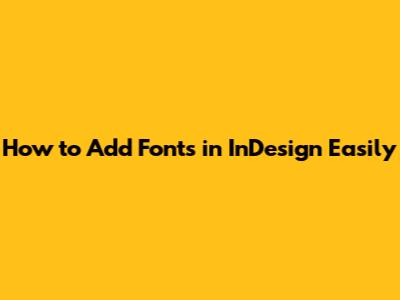
What's up, design gurus! Ever been in a situation where you're deep into a killer InDesign project, feeling the creative juices flow, and then BAM! You realize you need a super specific font to nail that aesthetic? It’s a common struggle, guys, and thankfully, adding new fonts to your InDesign workflow is totally straightforward. We’re talking about making your documents pop with fresh typography, and it’s not as intimidating as it sounds. So, let's dive into how you can easily add fonts in InDesign and level up your design game, ensuring your projects always look sharp and professional. This guide is all about making sure you have the tools you need right at your fingertips, so you can switch fonts like a pro and keep those creative vibes going strong. We’ll cover everything from understanding font types to the actual installation process, making sure you feel confident and ready to tackle any typographic challenge. Get ready to expand your font library and impress your clients (or just yourself!) with beautifully designed layouts. This isn't just about adding a font; it's about unlocking a whole new world of design possibilities and giving your projects that unique, personalized touch that only the right typeface can provide. So, buckle up, and let's get this font party started!
Understanding Font Files: The Basics Before You Begin
Before we jump headfirst into the how-to of adding fonts, let’s get a handle on the different types of font files you’ll typically encounter. Knowing this will save you a lot of confusion down the line. The two most common types you'll be dealing with when you add fonts in InDesign are OpenType (.otf) and TrueType (.ttf). OpenType fonts are generally the more modern and versatile option. They can contain a whole lot more characters and typographic features, like ligatures, stylistic alternates, and small caps, all bundled into a single font file. This makes them super powerful for designers who need a lot of flexibility. TrueType fonts, on the other hand, are an older format but still widely used and perfectly functional. They usually have separate files for different styles (like bold, italic, etc.), which can sometimes make font management a bit more cumbersome compared to the all-in-one nature of OpenType. You might also come across PostScript fonts (.pfb/.pfm), though these are becoming less common, especially with newer font releases. They work well but can sometimes be a bit trickier to install or manage. The key takeaway here is that InDesign can handle all these major types, but understanding their basic differences helps you appreciate the capabilities of the fonts you’re using. It’s also important to ensure you have the proper licensing for any font you use, especially for commercial projects. Fonts are software, and like any software, they come with licenses that dictate how you can use them. So, when you download or purchase a font, take a moment to check its EULA (End-User License Agreement). This will tell you if you can use it for print, web, embedding in PDFs, or even if you can install it on multiple computers within a team. Respecting font licenses is crucial for legal and ethical design practices, and it ensures the font creators are compensated for their amazing work. So, before you go downloading every cool font you see, give that license a quick read. It’s a small step that makes a big difference in the professional design world, ensuring you're always playing by the rules and keeping your projects on the up and up. Plus, you don't want any nasty surprises down the line, right?
Installing Fonts on Your System: The Foundation for InDesign
Okay, so you've got your shiny new font file ready to go. The crucial first step before you can add fonts in InDesign is actually installing the font onto your operating system. InDesign doesn't have its own separate font library; it relies on the fonts that are already available to your computer. Think of it like this: InDesign is a chef, and your operating system is the pantry. You need to stock the pantry with ingredients (fonts) before the chef can use them. The installation process varies slightly depending on whether you're using a Mac or a Windows PC, but the core idea is the same. For macOS users, the easiest way is usually to double-click the font file you’ve downloaded. This will open the Font Book application, which is macOS’s built-in font manager. You'll see a preview of the font, and there will be an “Install Font” button. Click that, and boom! The font is installed and available system-wide. Alternatively, you can open Font Book directly from your Applications folder and drag and drop your font files into the Font Book window. For Windows users, the process is similarly simple. You can right-click on the font file and select “Install” or “Install for all users.” Selecting “Install for all users” is generally recommended, especially if you're on a shared computer or want to ensure the font is accessible from all applications. Another method is to open the Control Panel, navigate to the “Appearance and Personalization” section, and then select “Fonts.” From there, you can simply drag and drop your font files into the Fonts folder. Once the installation is complete, it's a good idea to restart any Adobe applications you have open, including InDesign, to ensure they recognize the newly installed font. Sometimes, InDesign might already be running when you install a font, and it won’t pick it up until you give it a little refresh. Closing and reopening the application is the quickest way to do this. This step of installing the font at the system level is absolutely critical. If you skip this, InDesign won’t magically find it, and you’ll be left scratching your head wondering why your cool new font isn’t showing up in the dropdown menu. So, always remember: system installation first, then InDesign usage. It’s a fundamental step that unlocks the door to all the new typographic possibilities waiting for you. Don't underestimate the power of this basic step – it's the gateway to a world of design expression!
Adding Fonts Directly Within InDesign: Creative Cloud and Font Management
Now, let's talk about how you can add fonts in InDesign more directly, especially if you're part of the Adobe Creative Cloud ecosystem. This is where things get really slick. Adobe Creative Cloud offers a fantastic integrated solution called Adobe Fonts (formerly Typekit). If you have an active Creative Cloud subscription, you automatically get access to a vast library of high-quality fonts from leading foundries. The beauty of Adobe Fonts is that it integrates seamlessly with InDesign and other Adobe apps. To activate a font from Adobe Fonts, you don't need to manually download and install files onto your system in the traditional sense. Instead, you manage it all through the Creative Cloud desktop app or directly within InDesign. Open InDesign, go to the “Type” menu at the top, and select “Add Fonts from Adobe Fonts.” This will launch a panel or browser window where you can explore thousands of fonts. Found something you love? Simply click the activation toggle next to it, and the font will be downloaded and activated for use across all your Adobe applications. It's incredibly convenient because Adobe handles all the backend installation for you. The fonts activated through Adobe Fonts are managed through your Creative Cloud account, meaning they are available on any computer where you are logged in with your Adobe ID. This is a massive win for collaboration and for designers who work across multiple machines. You don't have to worry about manually transferring font files or dealing with licensing issues for these activated fonts, as they are covered under your subscription. The selection is constantly growing, too, with new fonts being added regularly. So, you always have access to cutting-edge typography. It’s like having a professional type foundry at your service, ready whenever inspiration strikes. This method is arguably the easiest and most integrated way to add fonts in InDesign if you’re a Creative Cloud subscriber, offering a wealth of options without the fuss of manual installation. You can browse by category, foundry, or even similarity, making it super easy to discover new typographic treasures that perfectly match your project's needs. It streamlines your workflow dramatically, allowing you to focus more on the creative aspect and less on the technicalities of font management. It’s a game-changer for designers who value efficiency and access to a premium font library.
Finding and Managing Fonts Outside Adobe Fonts
So, what if the font you need isn't available through Adobe Fonts, or maybe you've purchased a font from a third-party foundry or downloaded a free one from a reputable source? No worries, guys! You can absolutely still use those fonts in InDesign. The key here is that you've already learned the first crucial step: installing the font on your operating system. Once a font is installed on your Mac or Windows PC, InDesign will automatically recognize it and make it available in its font menus. To find the font you just installed, open InDesign, select the text frame you want to apply it to, and then go to the Character panel (Window > Type & Tables > Character). In the Character panel, you'll see a dropdown menu for the font family. Your newly installed font should appear in this list. If you don't see it immediately, try closing and reopening InDesign, as we discussed earlier. It’s important to keep your font library organized, especially if you work with a lot of different projects or clients. Some designers create specific folders on their computer for project-specific fonts or client-provided fonts. This helps prevent font conflicts and makes it easier to track which fonts are being used where. Adobe also provides tools within InDesign and Creative Cloud to help manage your fonts. In InDesign, you can use the Font Management features (File > Font Management) to see which fonts are used in your document and identify any missing fonts. This is super handy for ensuring your document is fully packaged and ready for output or sharing. For fonts activated via Adobe Fonts, they are managed through the Creative Cloud desktop app, keeping them separate but accessible. When working with external fonts, always double-check the licensing. Free fonts often come with specific usage restrictions, and purchased fonts have their own EULAs. Make sure you’re compliant to avoid any legal headaches. Organizing your fonts effectively means you can quickly find the exact typeface you need, speeding up your workflow and ensuring consistency across your designs. A well-managed font library is a hallmark of a professional designer, demonstrating attention to detail and efficiency. So, take the time to set up a system that works for you, whether it's a simple folder structure or utilizing more advanced font management software.
Troubleshooting Common Font Issues in InDesign
Even with the most straightforward process, sometimes you might run into a snag when you try to add fonts in InDesign. Don't sweat it, guys! We've all been there. One of the most common issues is a font not appearing in the InDesign font list after installation. As we’ve stressed, the first thing to check is that the font is actually installed on your operating system and that you've restarted InDesign. If you’re on Windows, ensure you selected “Install for all users” if possible. Sometimes, a font file might be corrupted. Try downloading the font again from its original source or try a different font file if the foundry provided multiple versions. Another common problem is font substitution, where InDesign replaces a font you intended to use with a default one, often showing a little yellow triangle warning icon in the Character panel. This usually happens when a font is missing from your system or when you open a document that uses fonts that aren't installed on your current computer. The solution is to identify the missing font (the warning icon helps here!) and install it on your system. If the font is unavailable or you don't have the license, you'll need to substitute it with an available font. In the “Find Font” dialog box (Type > Find Font), you can see which fonts are missing and choose replacements. Be mindful when substituting, as it can subtly change the look and feel of your layout. Licensing issues can also cause headaches. If you’re using a font that’s not properly licensed, it might not install correctly, or you might face legal consequences later. Always ensure your fonts are legitimately acquired. For collaborative projects, font management is key. Make sure everyone on the team has the necessary fonts installed or is using a shared font management system. Using the “Package” command (File > Package) in InDesign is essential. It gathers all the necessary assets, including fonts, linked images, and the InDesign file itself, into a single folder for easy sharing and output. This helps prevent missing font issues when the project moves between computers or collaborators. If you're still stuck, checking Adobe's support forums or searching online for the specific font name and the issue you're experiencing can often yield helpful solutions from other designers who have faced similar problems. Remember, troubleshooting is part of the design process, and learning how to solve these common issues will make you a more confident and capable InDesign user!
Best Practices for Font Usage and Management
Alright, let's wrap things up with some best practices for using and managing fonts that will make your life as a designer so much easier and your work look incredibly professional. First off, less is often more when it comes to font selection. While it's tempting to play with dozens of different typefaces, sticking to two or three complementary fonts (like a serif for body text and a sans-serif for headings, or vice versa) usually creates a more harmonious and readable design. Overusing fonts can make your layout look cluttered and amateurish. Establish a clear typographic hierarchy. Use different font sizes, weights (bold, light), and styles (italic) to guide the reader's eye and make it clear what information is most important. Your headings should stand out, your subheadings should be distinct, and your body text should be comfortable to read. This hierarchy is crucial for usability and visual appeal. Always embed fonts when creating PDFs for print or digital distribution, unless you have specific reasons not to (like licensing restrictions that prohibit embedding). Embedding ensures that the recipient sees your document exactly as you designed it, regardless of whether they have the fonts installed on their system. In InDesign, this is handled during the PDF export process – just make sure the “Embed Fonts” option is checked. Keep your font library organized. Whether you use Adobe Fonts, system folders, or dedicated font management software, having a system in place is vital. Regularly purge fonts you no longer use to avoid clutter and potential conflicts. Create project-specific folders if needed. And always respect font licensing. Never use a font for a purpose not covered by its license. If you’re unsure, err on the side of caution or contact the font foundry. Use font management tools proactively. Tools like Suitcase Fusion, FontBase, or even Adobe Creative Cloud’s font management features can help you activate/deactivate fonts as needed, preview them, and organize them efficiently. This is especially useful if you work with a large number of fonts or for different clients. Finally, test your typography. Before finalizing a project, especially for print, do a test print to ensure the fonts look as expected. Check for readability, especially for body text, and ensure that fine details in your chosen fonts aren't getting lost or looking fuzzy at the intended size. By implementing these best practices, you'll not only ensure your designs look fantastic but also that your workflow is smooth, efficient, and professional. Happy designing, folks!